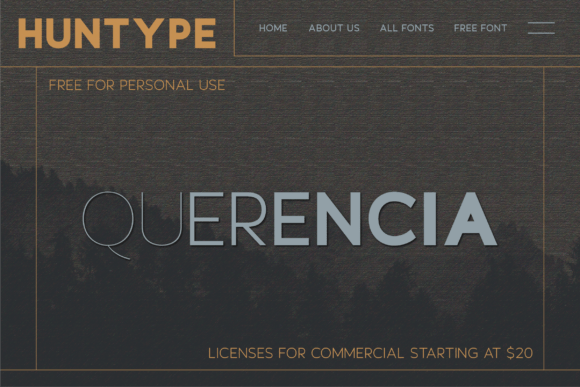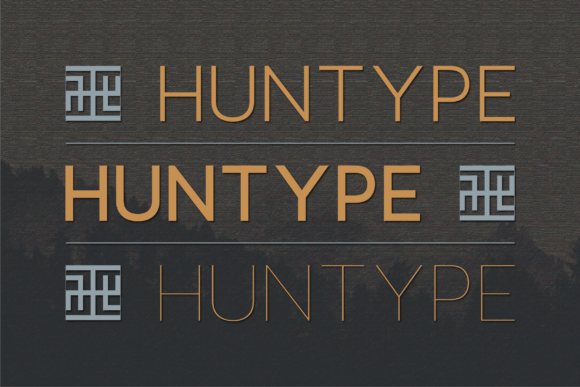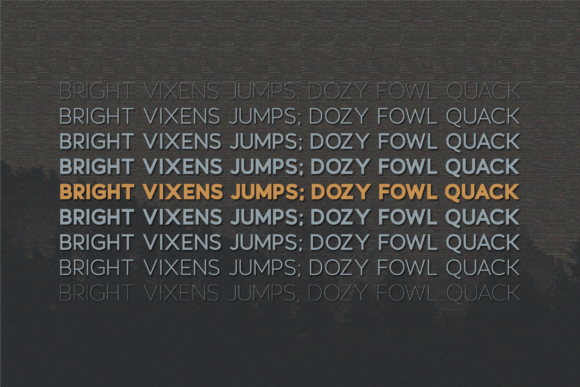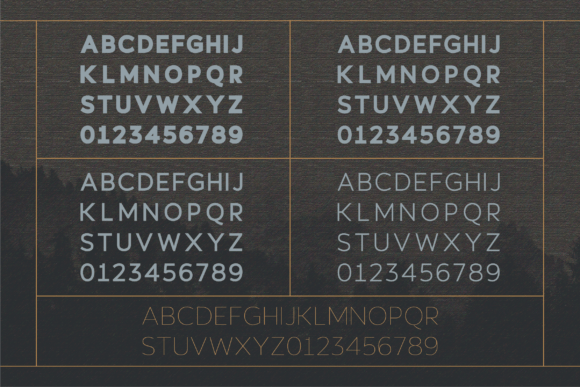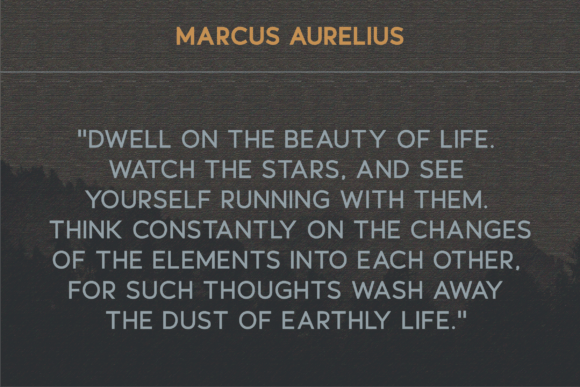
Introduction to Querencia Font
It is a modern and versatile font family, a blend of clean geometric forms and subtle sophistication.
Its adaptable style is evident in the precise letterforms and contemporary aesthetic A harmony of sharp lines and gentle curves.
Querencia Font offers exceptional quality and versatility, making it a valuable addition to your design toolkit. Whether you’re creating for personal projects or commercial use, Querencia Font delivers professional results.